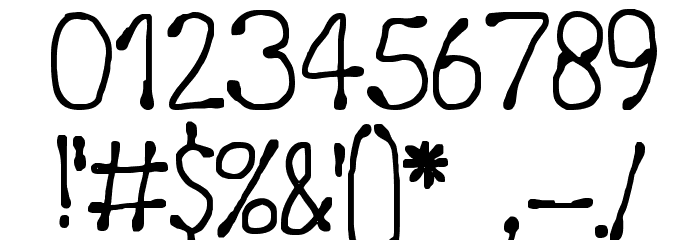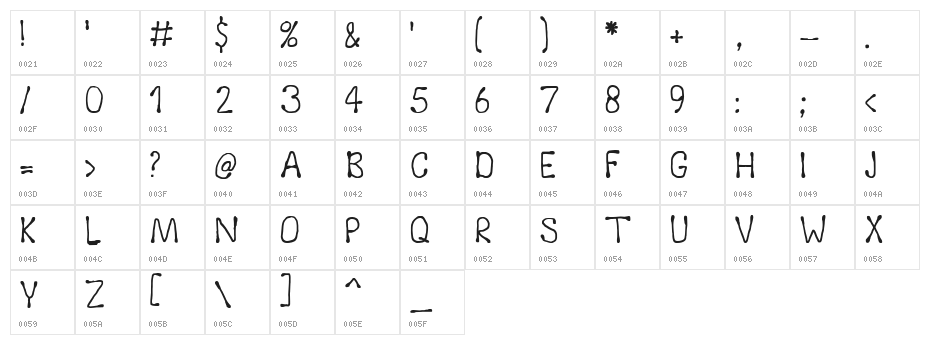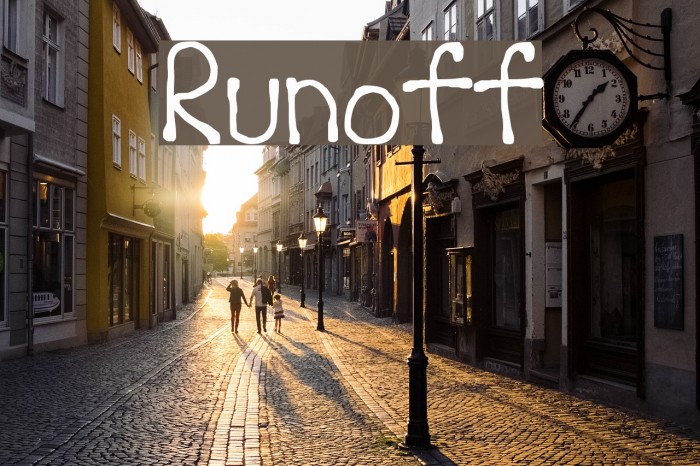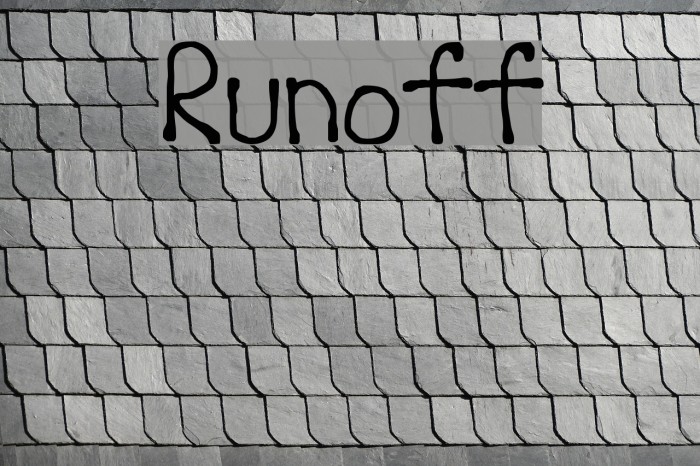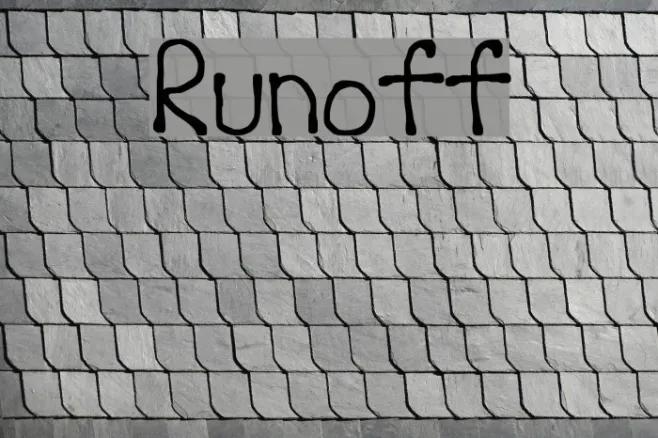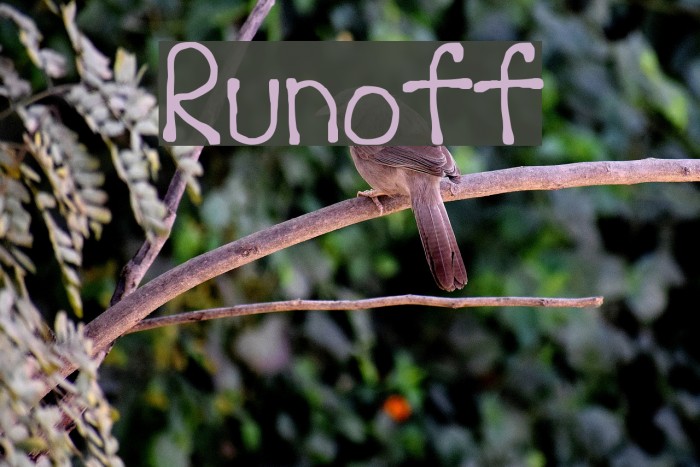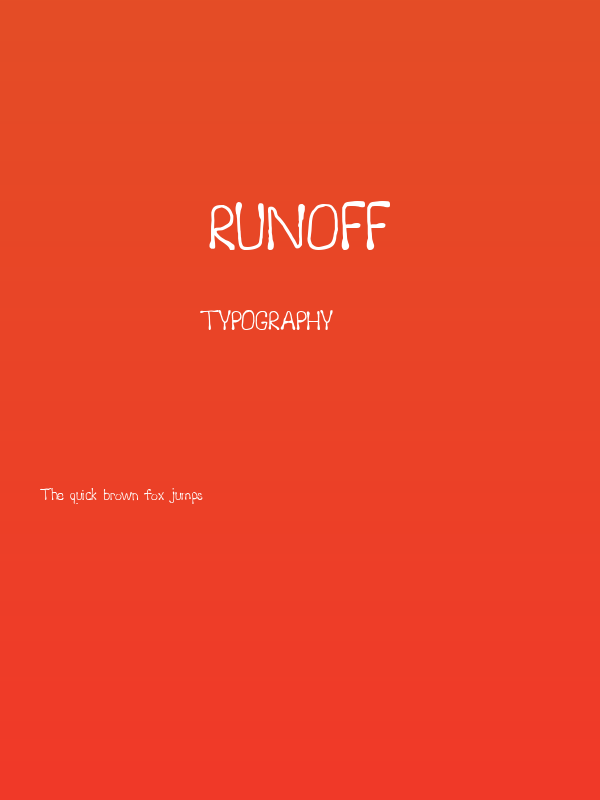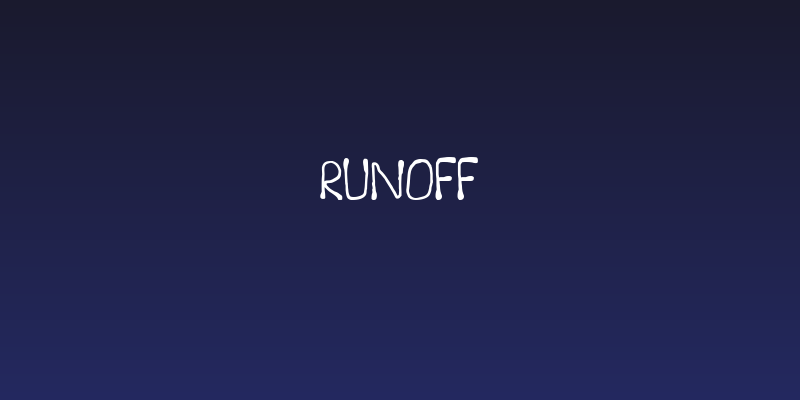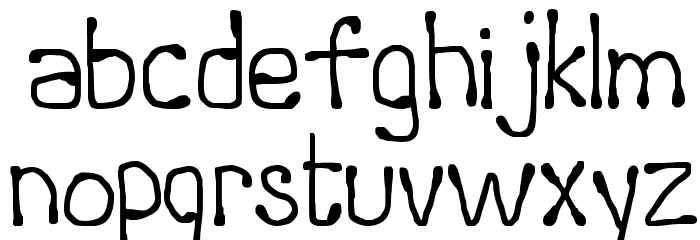
Runoff Font
Runoff Description
This font exhibits a playful and organic style, characterized by its irregular and hand-drawn appearance. The letters are formed with uneven strokes, giving them a whimsical and casual feel. The uppercase and lowercase letters maintain a consistent style, with rounded edges and a slightly uneven baseline, enhancing the informal aesthetic. The numbers and special characters follow the same design principles, ensuring a cohesive look across all glyphs. This font's unique charm makes it suitable for creative and informal projects where a personal touch is desired.